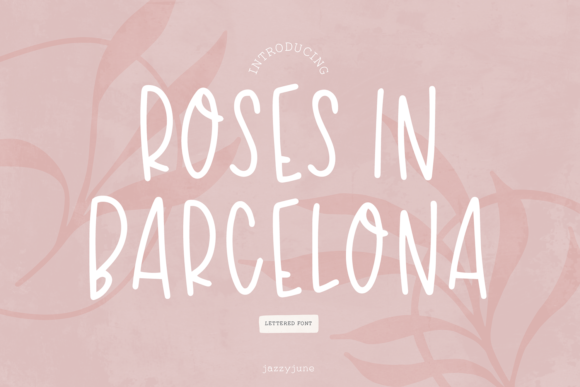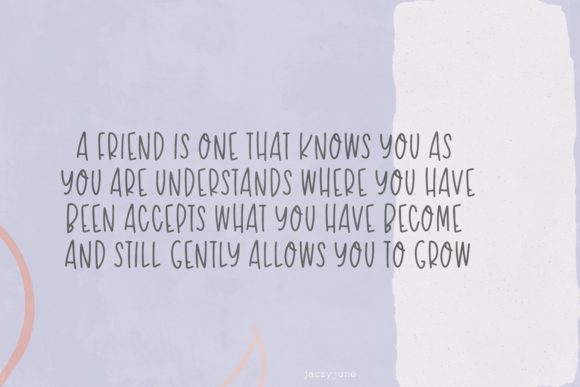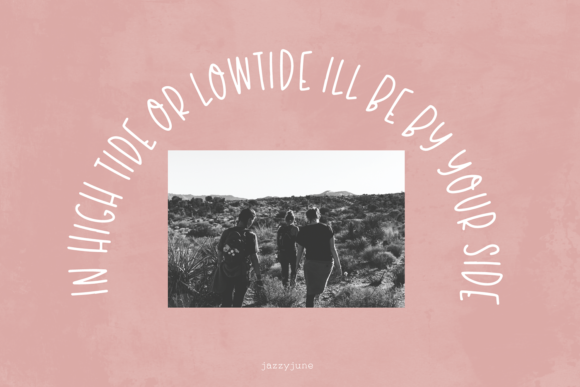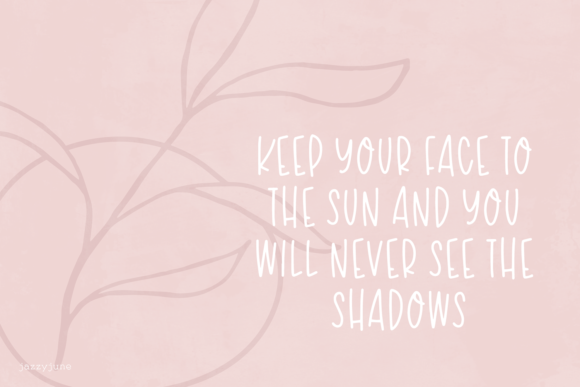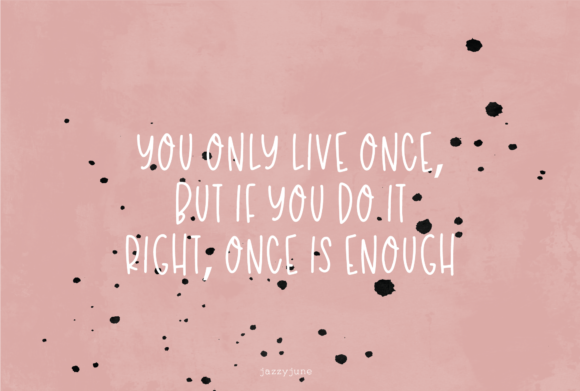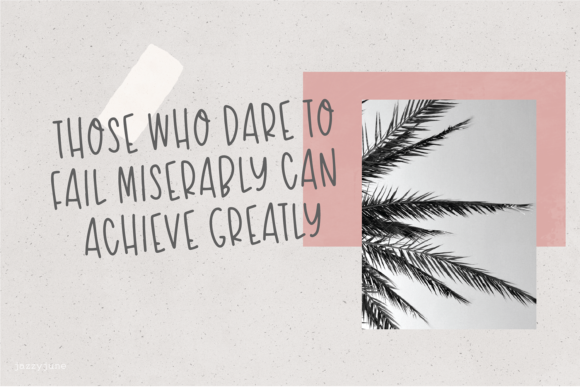
Roses in Barcelona Font
About Roses in Barcelona Font
Roses In Barcelona is a charming and straightforward handwritten font that brings a touch of sweetness to any project. Its simplicity and versatility make it a valuable addition to your font library, as it has the potential to enhance and elevate any creation.
With its cute and playful appearance, Roses In Barcelona is well-suited for a wide range of topics and design purposes. Whether you’re working on a children’s book, a wedding invitation, a greeting card, or even a logo, this font can add a delightful and whimsical touch to your designs.
The clean and legible letterforms of Roses In Barcelona make it easy to read and understand, ensuring that your messages are conveyed effectively. Its simplicity and clarity allow the font to shine in various sizes and applications, whether in headlines, body text, or even as a decorative element.
One of the standout features of Roses In Barcelona is its ability to bring a sense of joy and playfulness to your designs. The handwritten style adds a personal and human touch, creating a warm and inviting atmosphere. It evokes the feeling of a handwritten note or a doodle, instantly connecting with the viewer on an emotional level.
The versatility of Roses In Barcelona allows it to adapt to different design styles and themes. Its simplicity makes it a great complement to minimalist and modern designs, adding a touch of character and uniqueness. It can also work well with more elaborate and decorative styles, providing a balanced and harmonious contrast.
Roses In Barcelona is a font that effortlessly captures attention without being overpowering. Its simplicity and cuteness make it a perfect choice for creating a friendly and approachable brand identity, attracting audiences of all ages. It can also bring a touch of whimsy to social media graphics, blog posts, and other digital content.
In conclusion, Roses In Barcelona is a cute and simple handwritten font that adds a touch of sweetness and playfulness to any design. Its versatility and legibility make it an asset to your font library, as it has the potential to enhance a wide range of creations. With Roses In Barcelona, you can bring joy and character to your designs, creating a delightful and engaging experience for your audience.